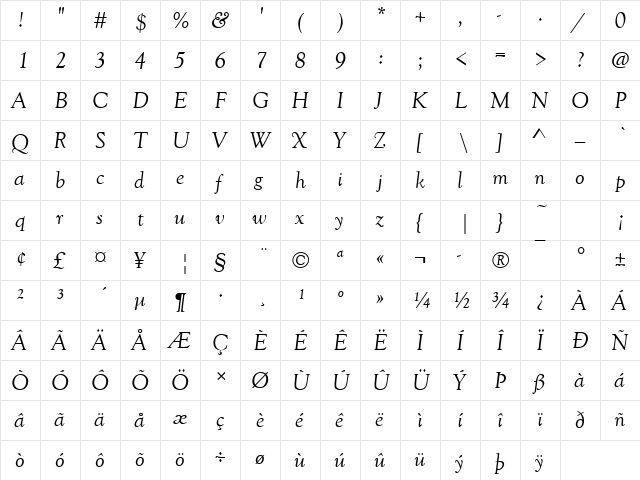
GoudyOldStyT Italic
Design Context for GoudyOldStyT Typeface
GoudyOldStyT offers clean, dependable letterforms without strong stylistic allegiance, making it a practical choice for designers who need flexibility. Its italic angle brings a sense of urgency and motion to the letterforms.
Pro Tip: Try GoudyOldStyT for annotation and caption copy alongside an upright companion — the contrast in angle creates a dynamic but ordered typographic system.